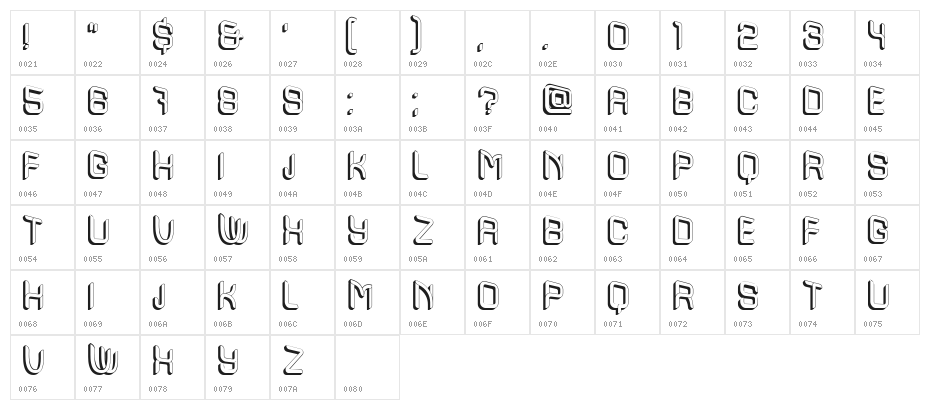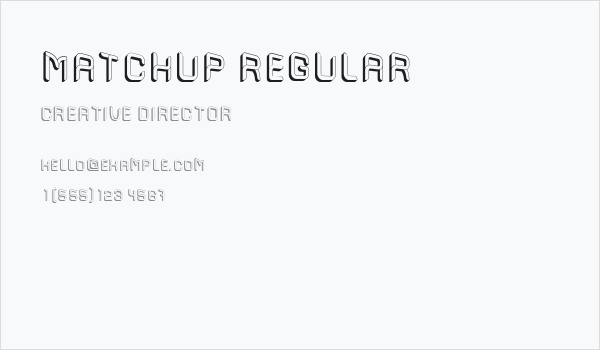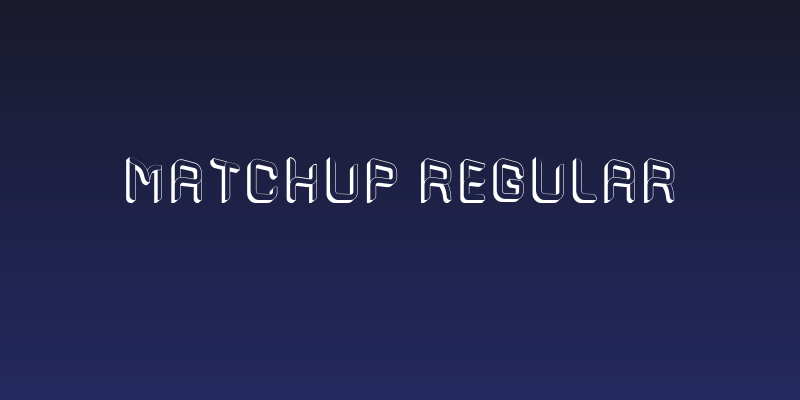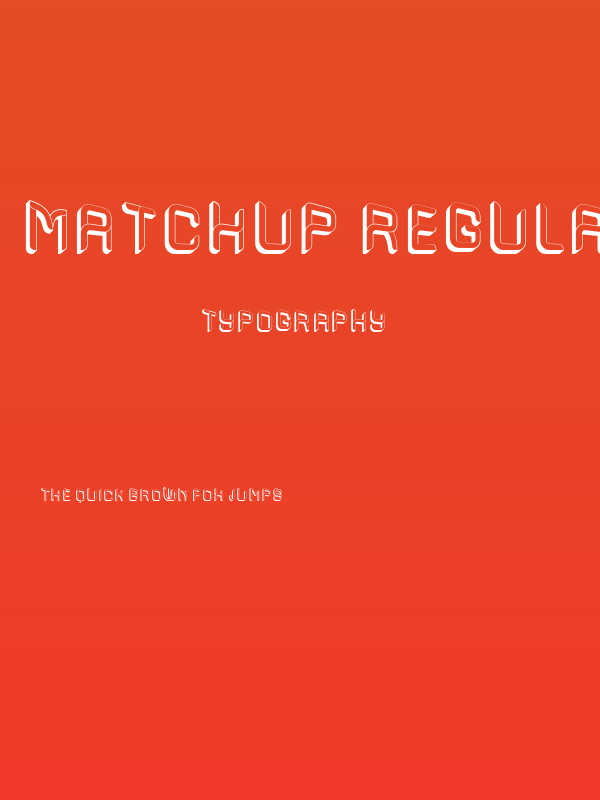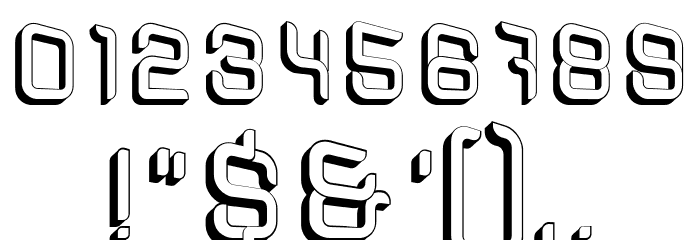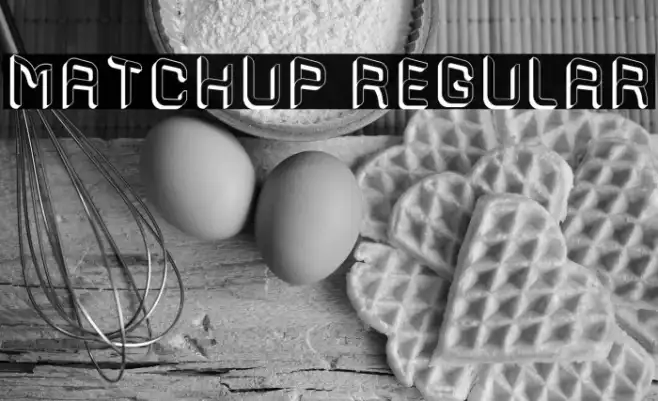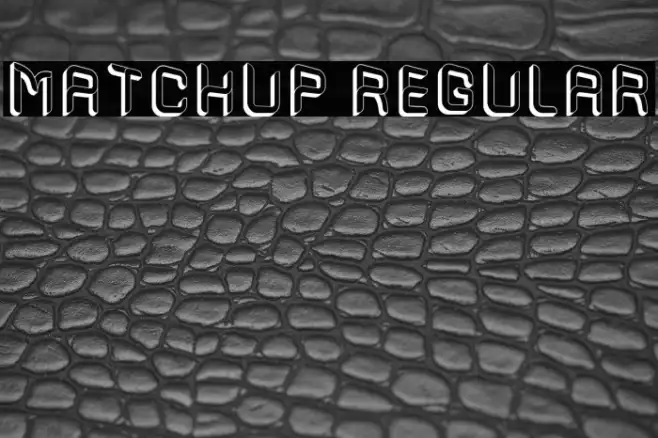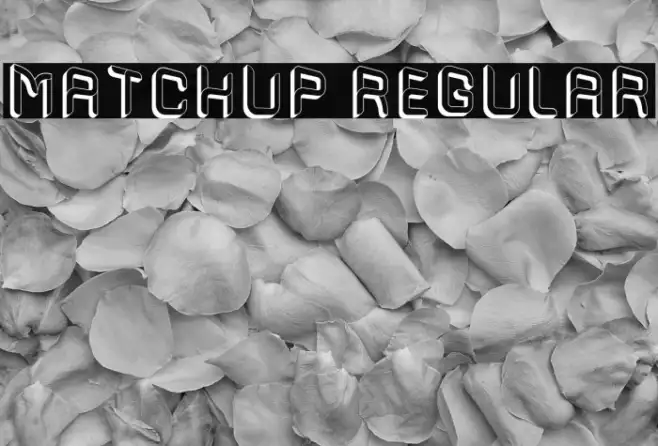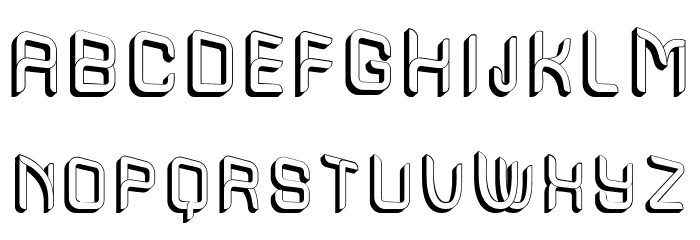
Matchup Regular Font
Matchup Regular Description
This font features a bold, three-dimensional style with a modern and playful aesthetic. The characters are outlined with a shadow effect, giving them a sense of depth and dynamism. The uppercase and lowercase letters maintain a consistent geometric structure, with rounded edges and a uniform thickness. The numerals and special characters follow the same design principles, ensuring a cohesive look across all glyphs. This font's unique style makes it stand out, making it ideal for attention-grabbing designs.